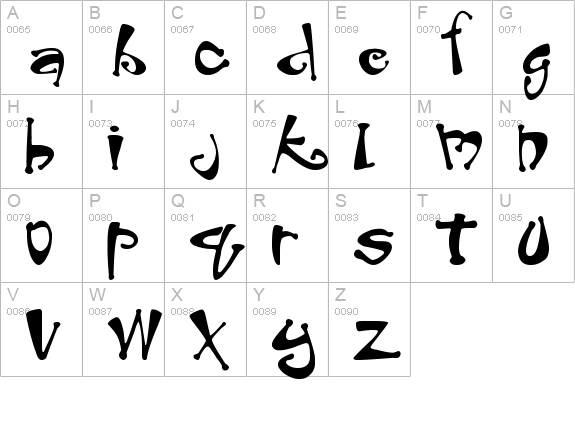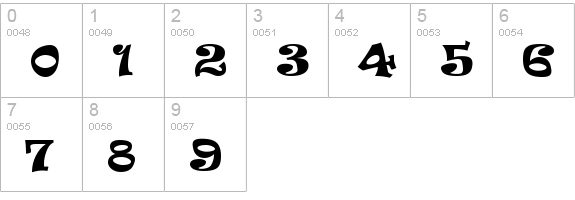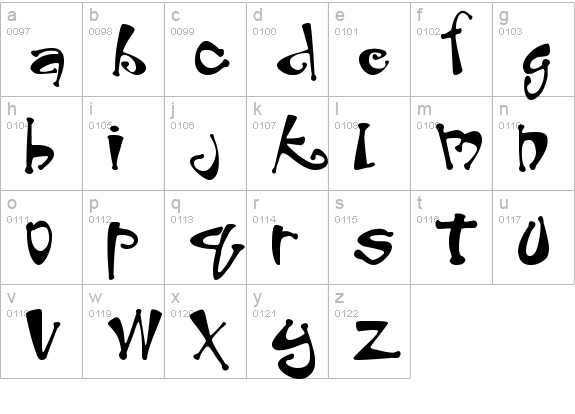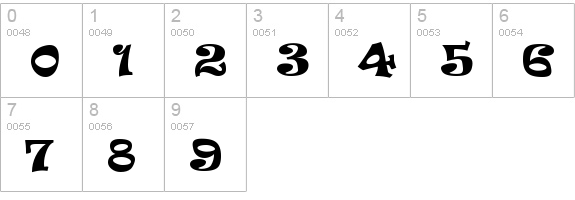
Peabody Font Details
Peabody font is a beautifully crafted typeface that exudes elegance and sophistication. With its timeless appeal and classic charm, Peabody font is perfect for various design projects, from branding to editorial work. The sleek lines and unique curves of this font make it stand out and capture attention effortlessly. One of the best things about Peabody font is that it is free to download at FontsMarket.com. This means that you can access this stunning typeface without any cost, making it an excellent choice for designers looking for high-quality fonts without breaking the bank. Whether you're working on a logo, poster, or website design, Peabody font will add a touch of class and refinement to your projects. Download Peabody font today from FontsMarket.com and elevate your designs with this exceptional typeface that combines tradition with modernity.